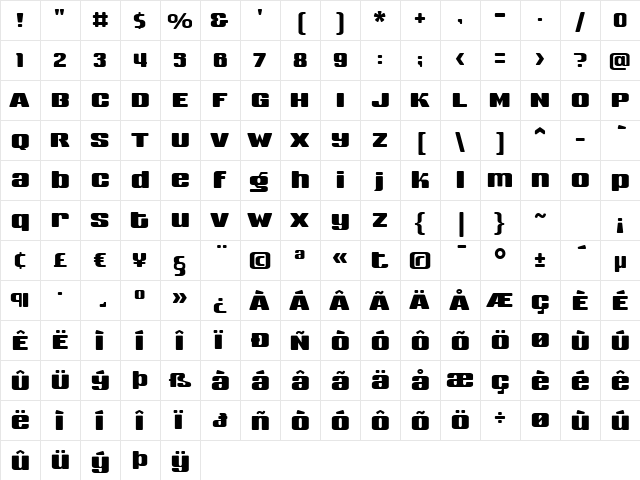
Sneakers Medium Biform Regular
Design Context for Sneakers Medium Biform Typeface
Sneakers Medium Biform takes a measured approach to typography — its balanced proportions and neutral character make it a reliable workhorse for both digital and print work.